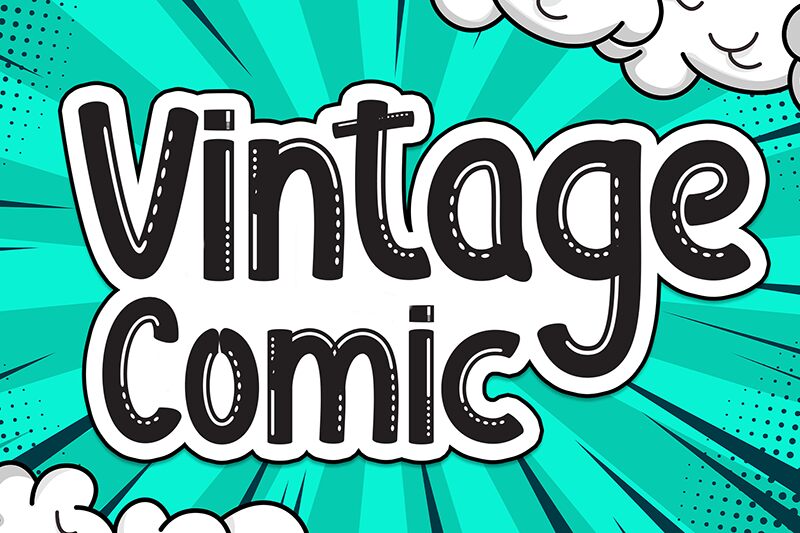
Vintage Comic
Vintage Comic font by Scratchones is a free display font inspired by old comic books and movies. It features decorative elements and a playful aesthetic that evokes nostalgia with a comic theme. This whimsical creation communicates fun vibes, something the author achieves through its beautiful letters.
Make your audience smile with a typography found in comics, newspapers, headlines, children’s books, titles, magazines, greeting cards, book covers, visual content for social media platforms (Instagram posts or Facebook feed banners), websites’ home pages and landing pages paxperts typed with this professional resource.